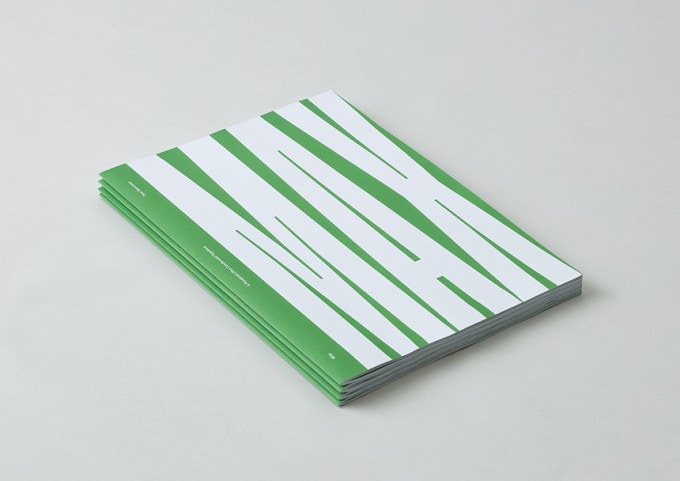
Max is a custom purebred ultra condensed typeface created for the déjà pet food company – a zero waste pet food made for the love of pets and the planet. Purposeful, playful and full of character, it was built to embody the déjà message and its optimistic, activist tone. The Max Type Specimen broadsheet was created to showcase the impact the typeface has at scale and as a means to truly enjoy its unique quirks and characteristics.